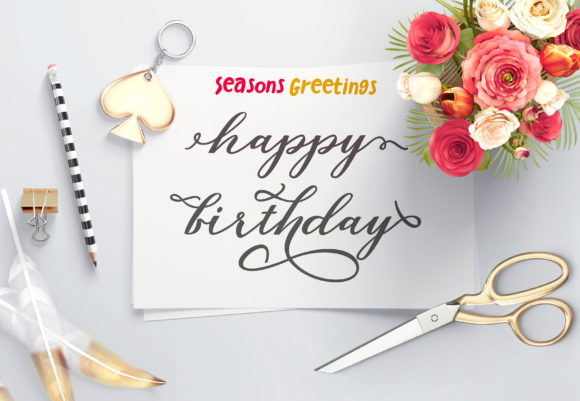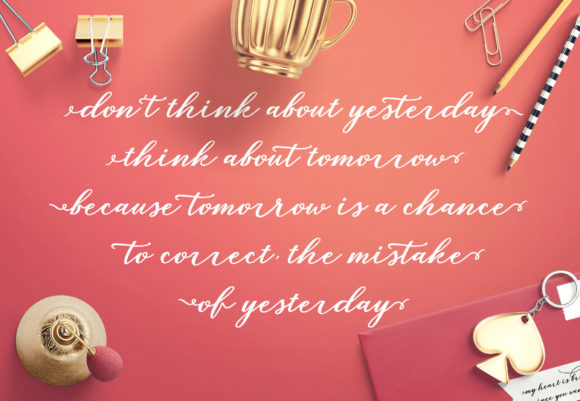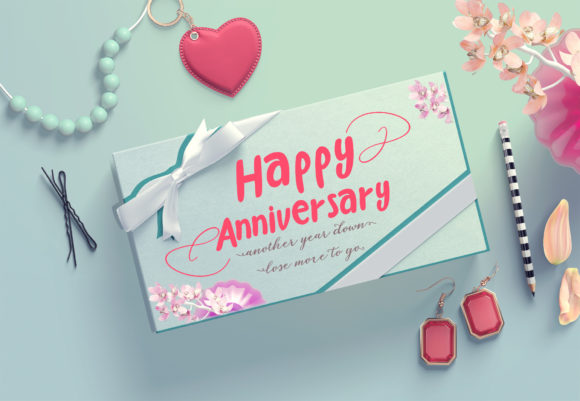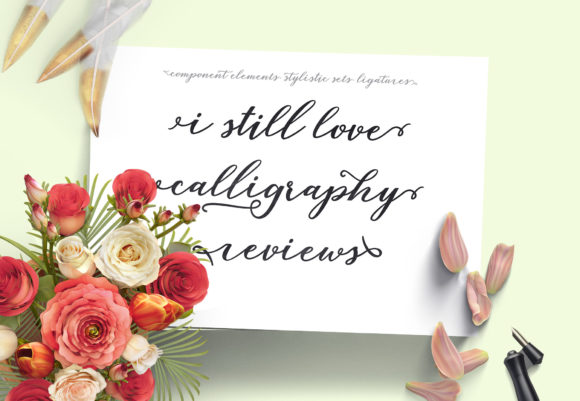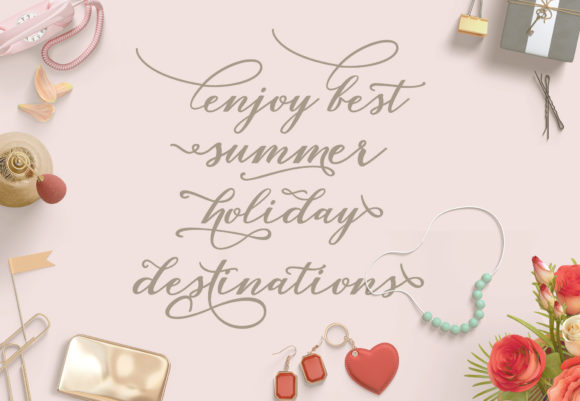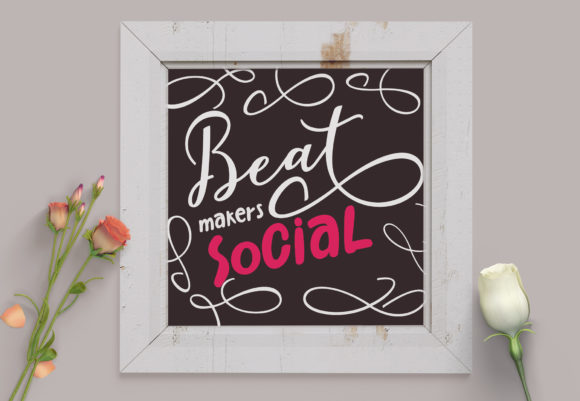
Lovelia Script Font
About Lovelia Script Font
Lovelia is a contemporary script font featuring some comic characters that will give your creations an artistic feel. This font is ideal for promoting and celebrating your creative ideas! Use it for wedding invitations, graduation, greeting cards, branding material, business cards, quotes, posters, or anything else.